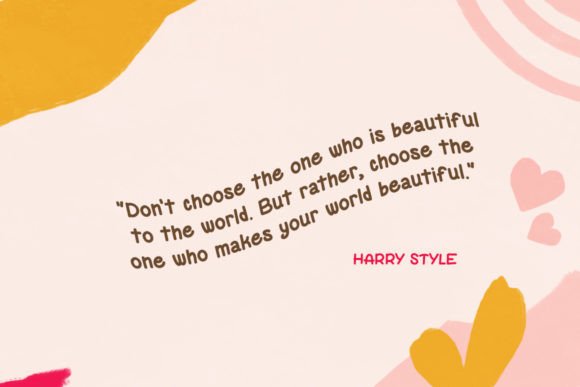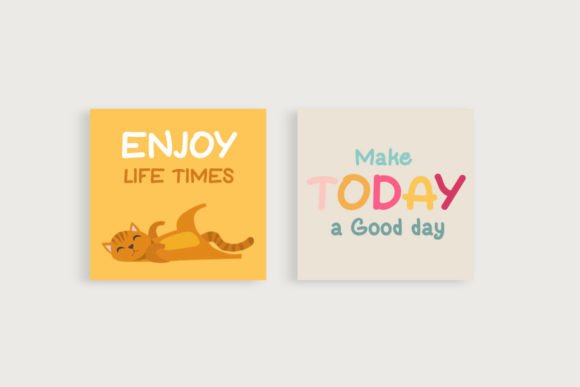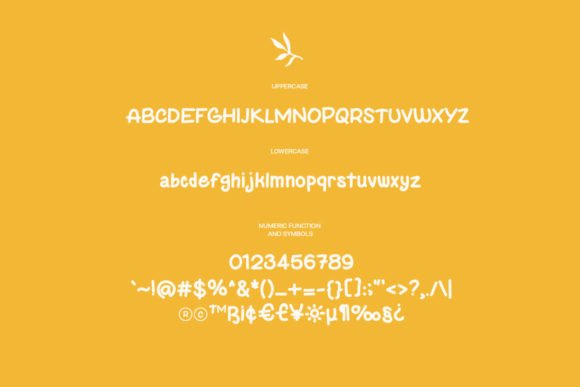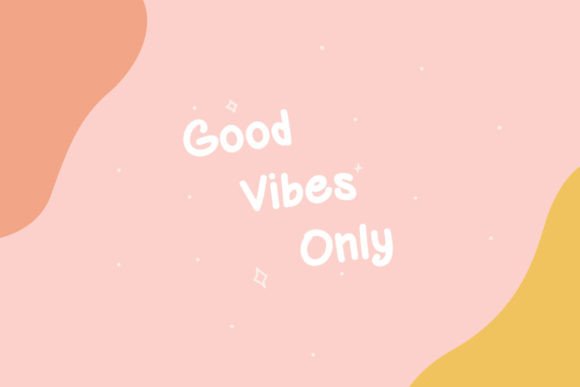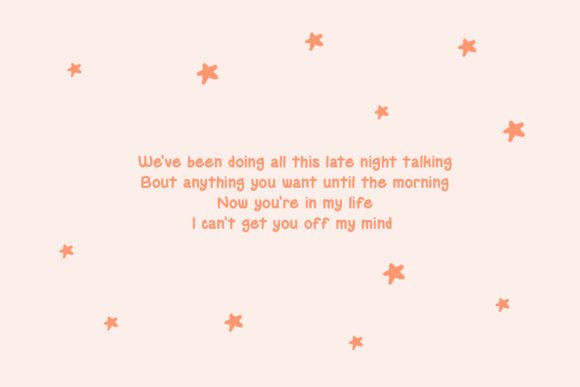
Introduction to Nusamatis Font
Have you ever found yourself stuck in a creative rut, unable to bring your vision to life? Perhaps you’re working on a new project, and the perfect font is the missing piece that’s holding everything together. If this sounds familiar, you’re in luck! We’re excited to introduce you to the Nusamatis Font, a free download that’s about to become your new design BFF.
This high-quality, casual handwritten font has a modern yet whimsical style that’s guaranteed to transport your designs into a magical world. With its transparent background and effortless charm, Nusamatis Font is the perfect addition to any creative project. Whether you’re a seasoned designer or just starting out, this versatile font is sure to bring a touch of personality to your work.
Key Features of Nusamatis Font
- High-quality design resource ideal for creative projects, with a transparent background for seamless integration.
- Unique, stylish design that can add a touch of elegance to any project, from logos to brochures.
- Suitable for use in a variety of creative projects, including branding, advertising, and editorial design.
Honest Review: Nusamatis Font
I recently had the chance to try out the Nusamatis Font, and I must say it’s a great addition to any design resource collection. ✨ One of the things I liked most about this font is its unique and modern design, making it perfect for creative projects that require a touch of sophistication.
What I also appreciated was the high quality of the font, which is evident in its smooth and even lines. It’s also available for free download, which is always a bonus. The transparent background is another feature that makes it easy to use and integrate into any design.
Here are some of the key features that I liked about the Nusamatis Font:
- Unique and modern design
- High quality and smooth lines
While I did enjoy using the Nusamatis Font, I did encounter a few limitations. ⚠️ For one, it’s not as versatile as some other fonts, and it may not be suitable for all types of projects. Additionally, the font is quite large in file size, which can be a issue for those with slower internet connections.
Overall, I’d give the Nusamatis Font a solid 4 out of 5 stars. It’s a great addition to any design resource collection, and it’s perfect for creative projects that require a touch of sophistication. However, it may not be the best choice for every project, and its limitations should be considered before making a final decision.
Tips for Getting the Most Out of Nusamatis Font
Experiment with different font sizes and colors to achieve a unique look. Combine the Nusamatis Font with other design resources to create a cohesive design. Take advantage of the font’s transparent background feature to add depth to your design.
Common Use Cases for Nusamatis Font
The Nusamatis Font is suitable for a variety of creative projects, including logos, business cards, and presentations. Its high-quality design and transparent background feature make it an ideal choice for designers looking for a free download to enhance their design resource.